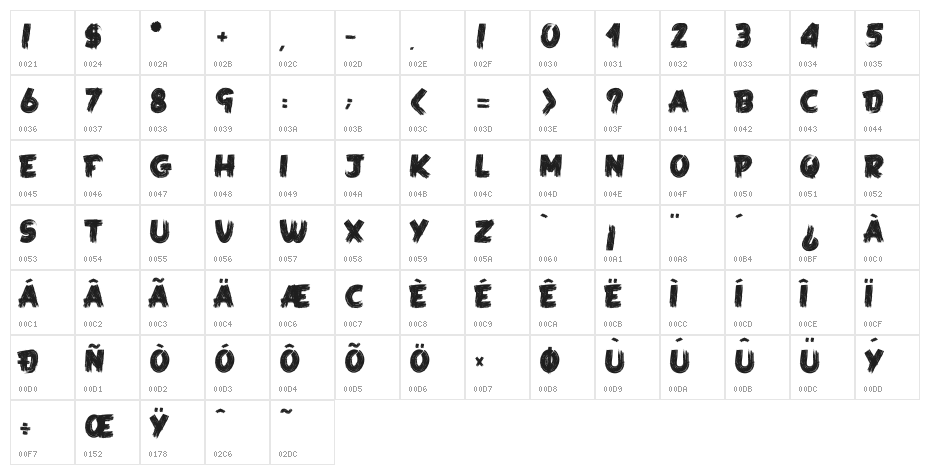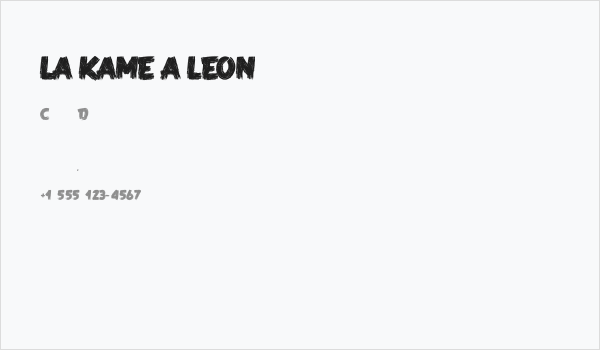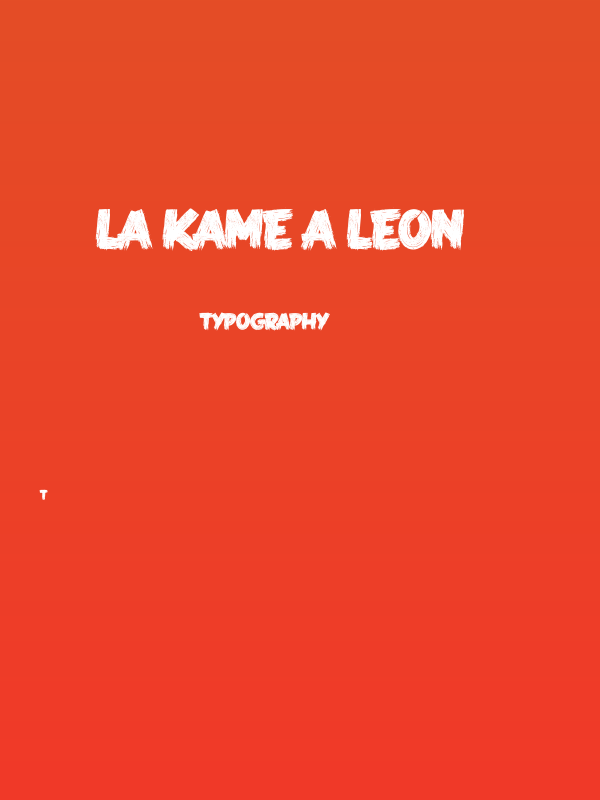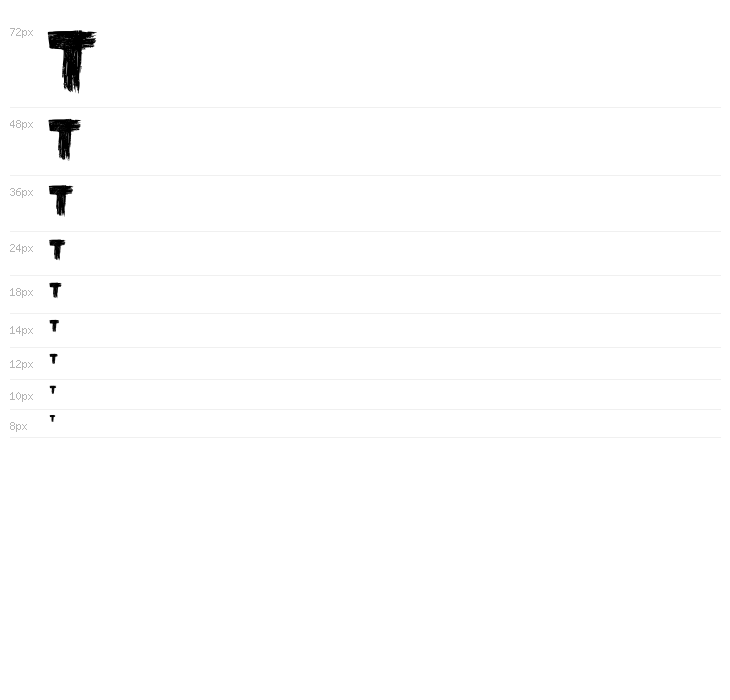
LA KAME A LEON Font
LA KAME A LEON Description
This font features a bold and dynamic brushstroke style, giving it a rugged and energetic appearance. The characters are crafted with uneven edges and varying thickness, creating a sense of movement and texture. This artistic design is reminiscent of hand-painted signs or expressive artwork, making it stand out with its unique flair. The uppercase letters are bold and commanding, while the numbers and special characters maintain the same energetic style. This font is ideal for projects that require a strong visual impact and a creative touch.
| Proposed Projects | Perfect for posters, album covers, artistic branding, and creative advertisements. |